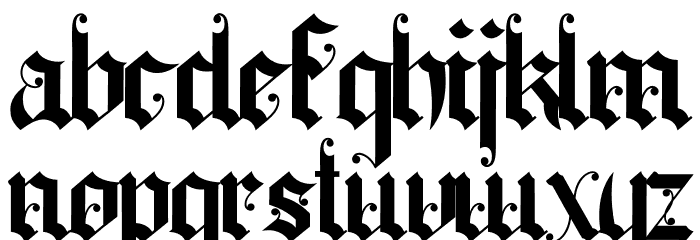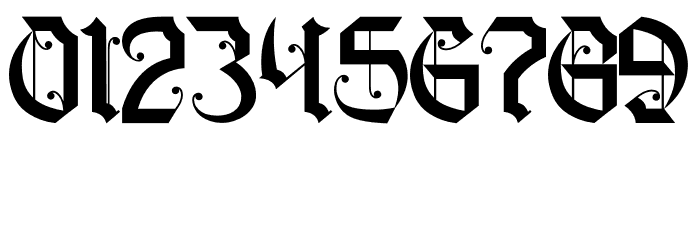
Battom Glory Font
This font features a bold and intricate design reminiscent of traditional Blackletter styles. The characters are highly decorative, with sharp angles and elaborate flourishes that give it a distinct medieval appearance. The uppercase letters are particularly ornate, with extended serifs and unique embellishments that add to its gothic aesthetic. The lowercase letters maintain the same level of detail, ensuring consistency throughout the typeface. Numbers and special characters are equally stylized, making this font suitable for projects that require a dramatic and historical touch.
A bold, decorative Blackletter font with intricate details and gothic flair.
- Font: Battom Glory
- Proposed Projects: Ideal for use in vintage-themed designs, historical publications, gothic posters, and branding that requires a dramatic and traditional look.
- Category: Blackletter
- Overall Style: Vintage, Decorative